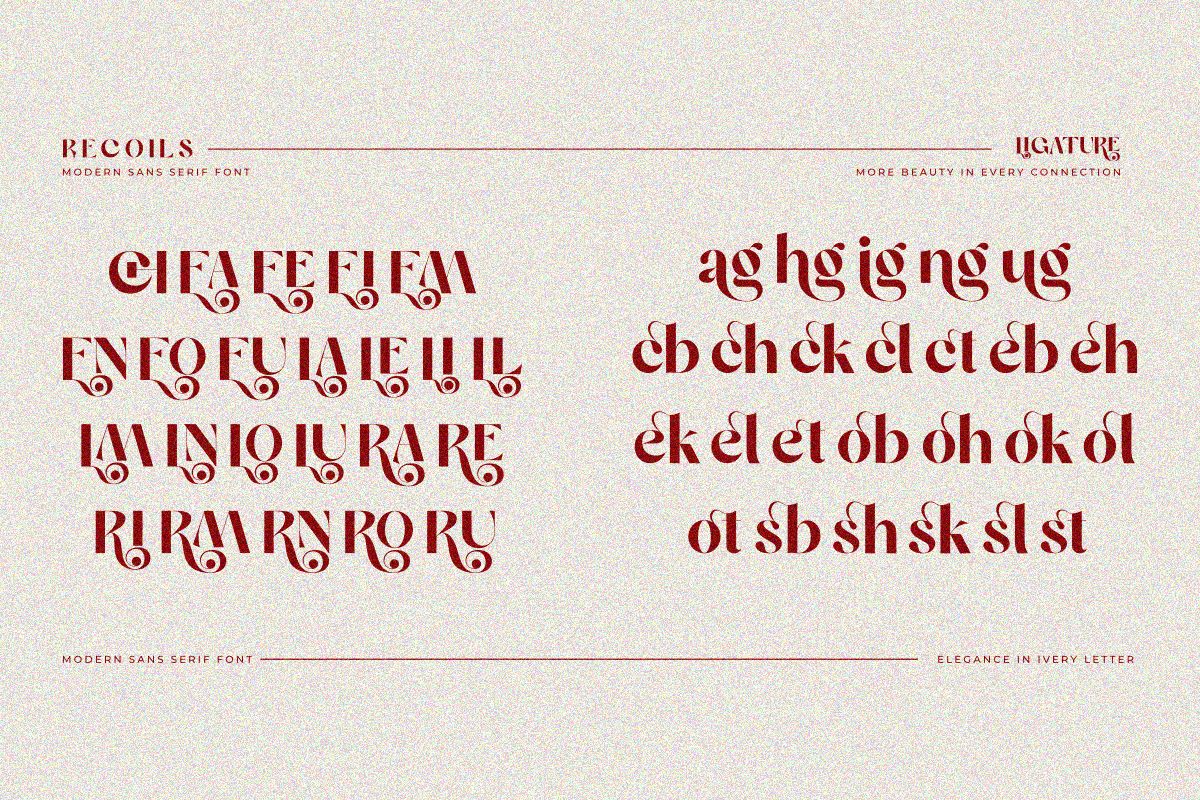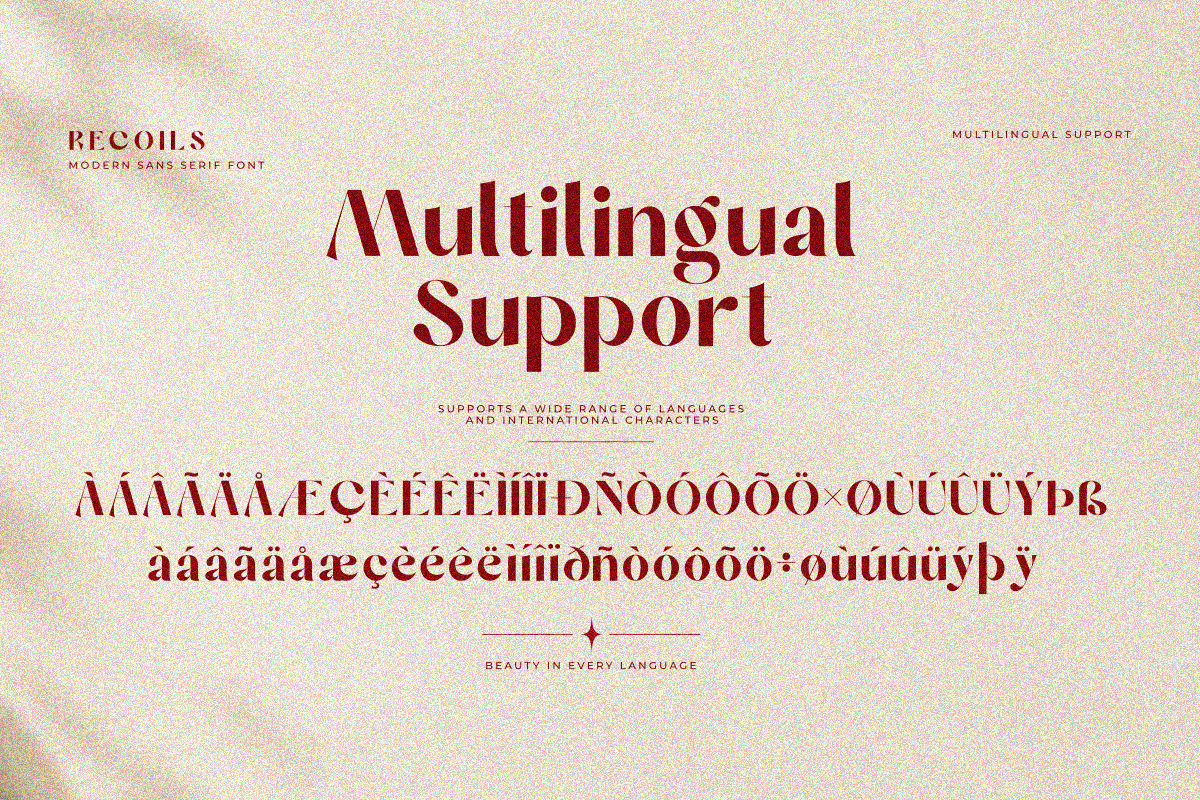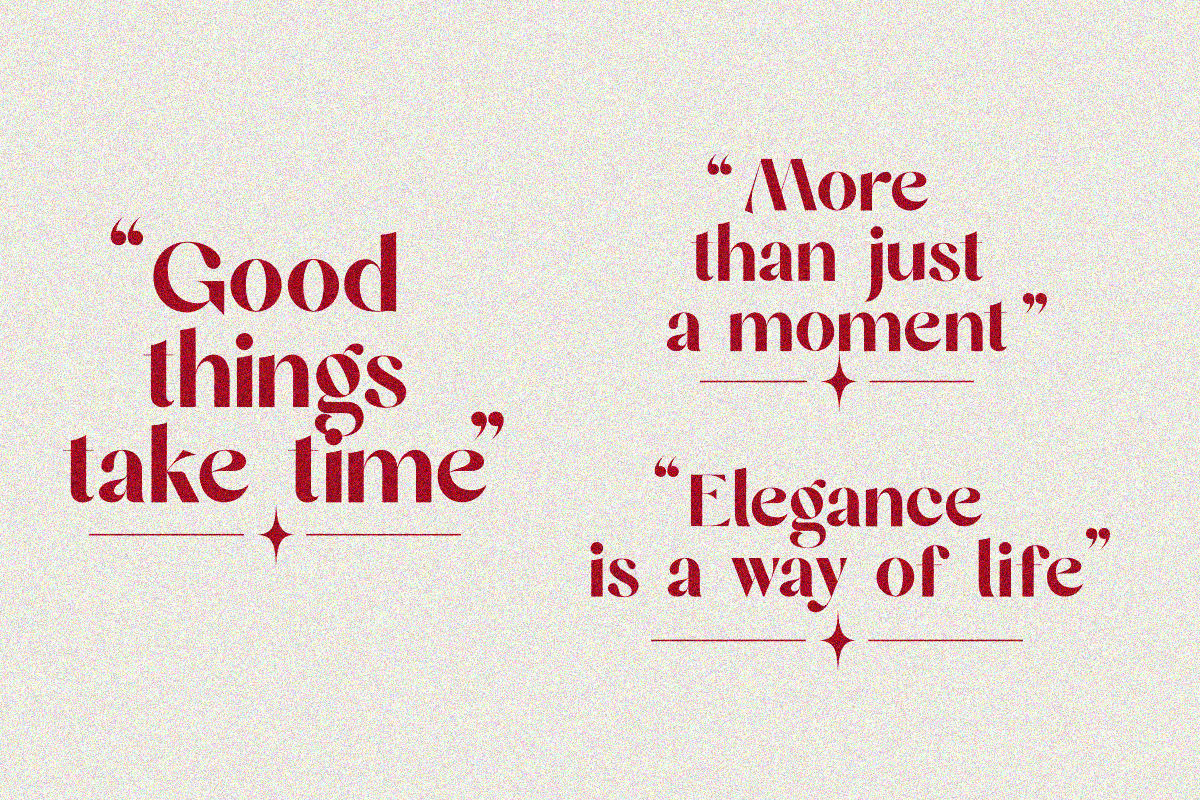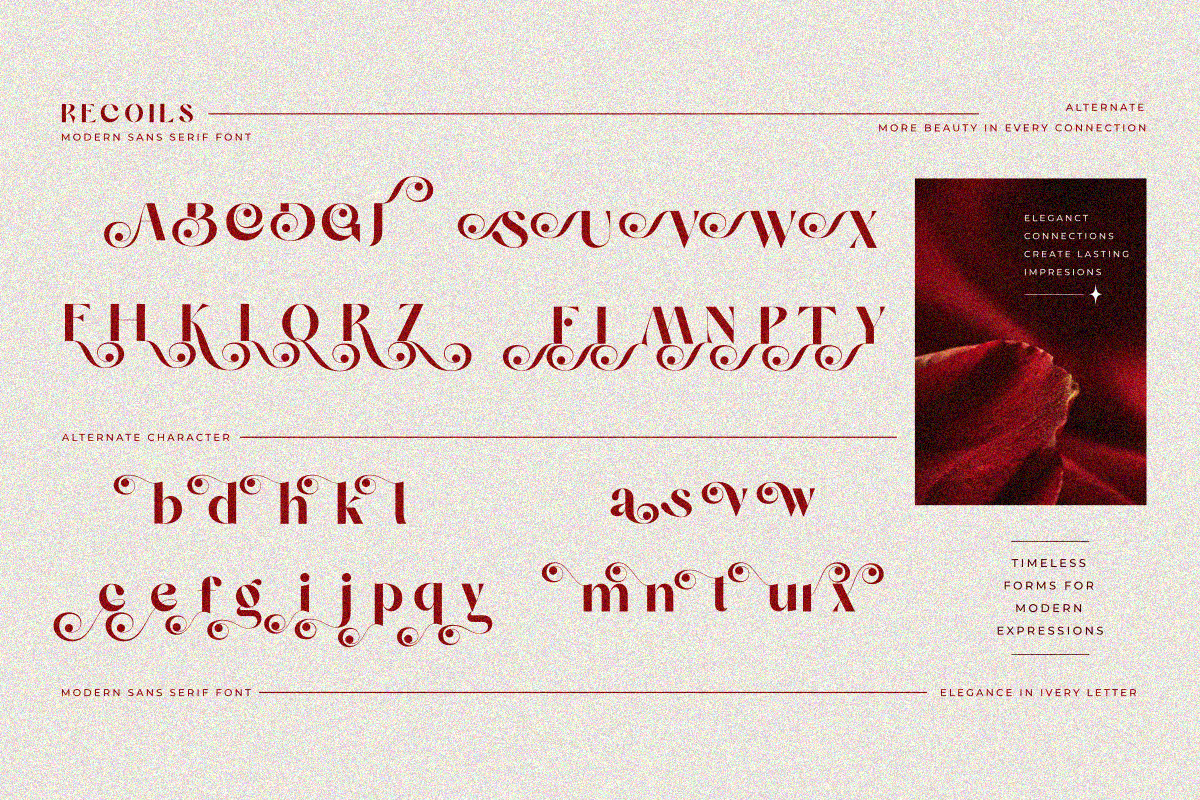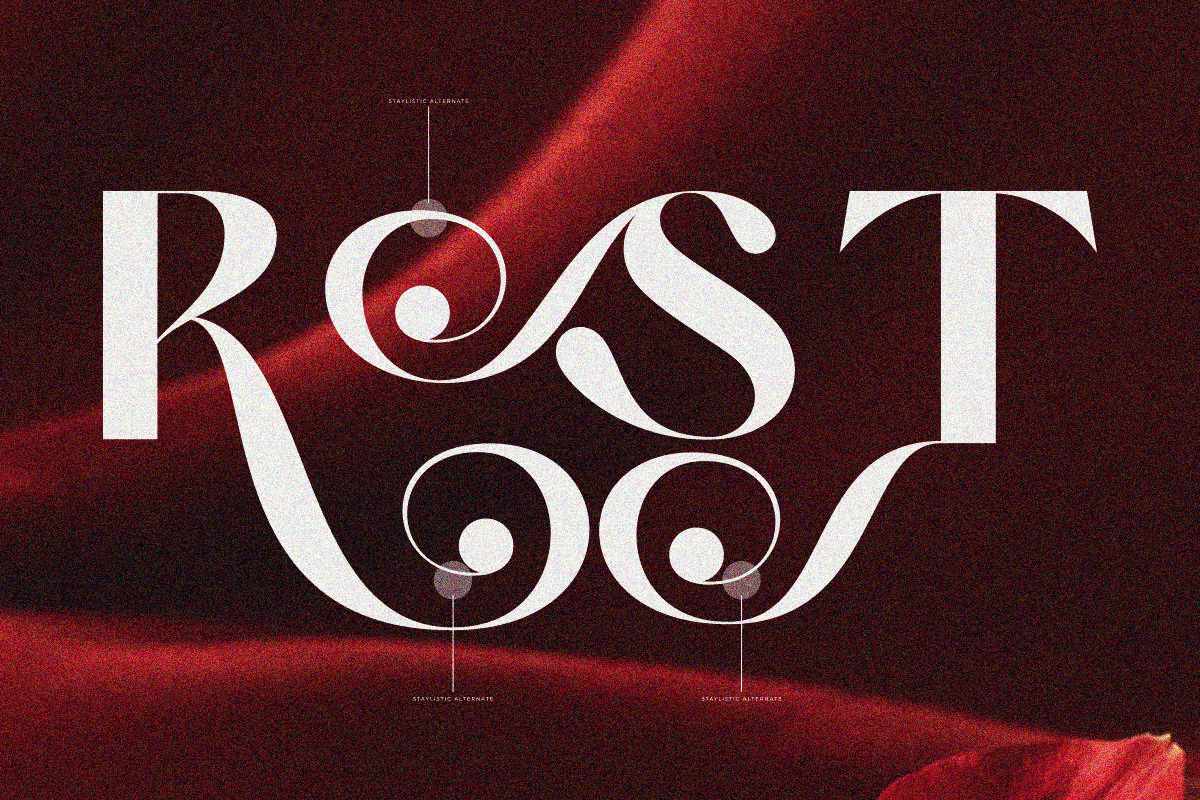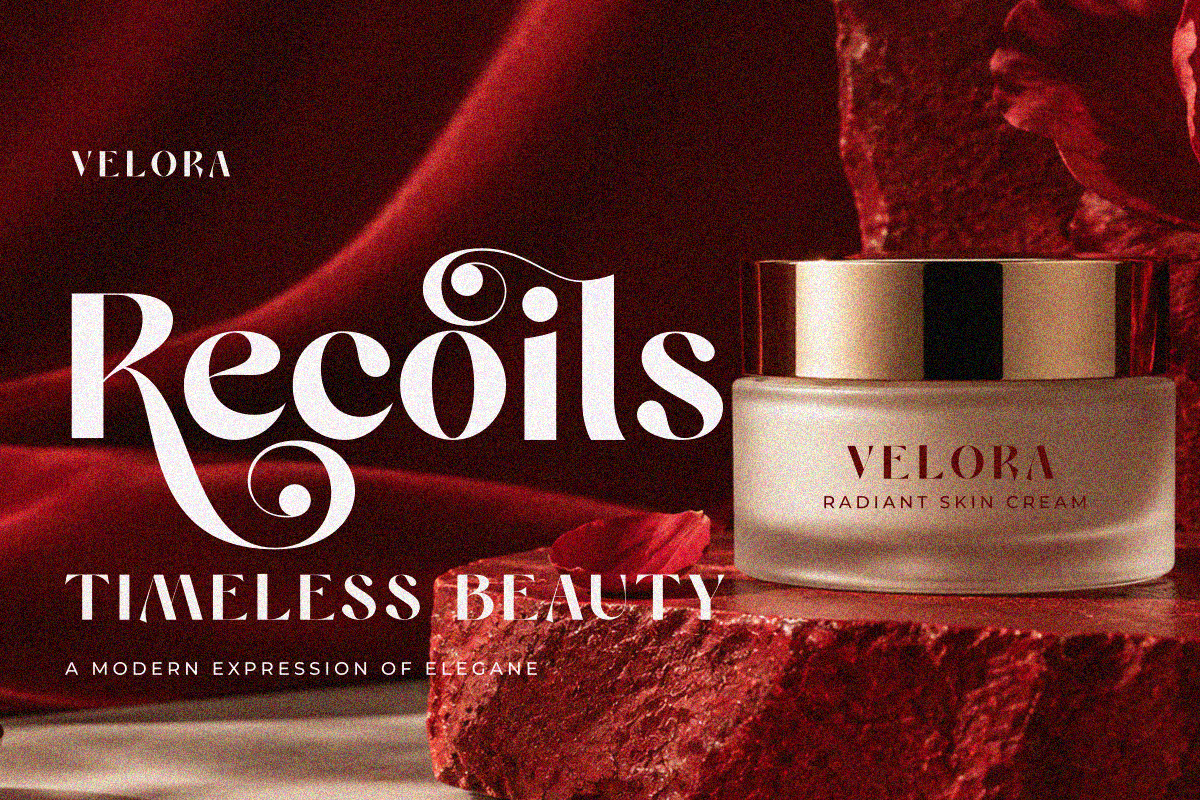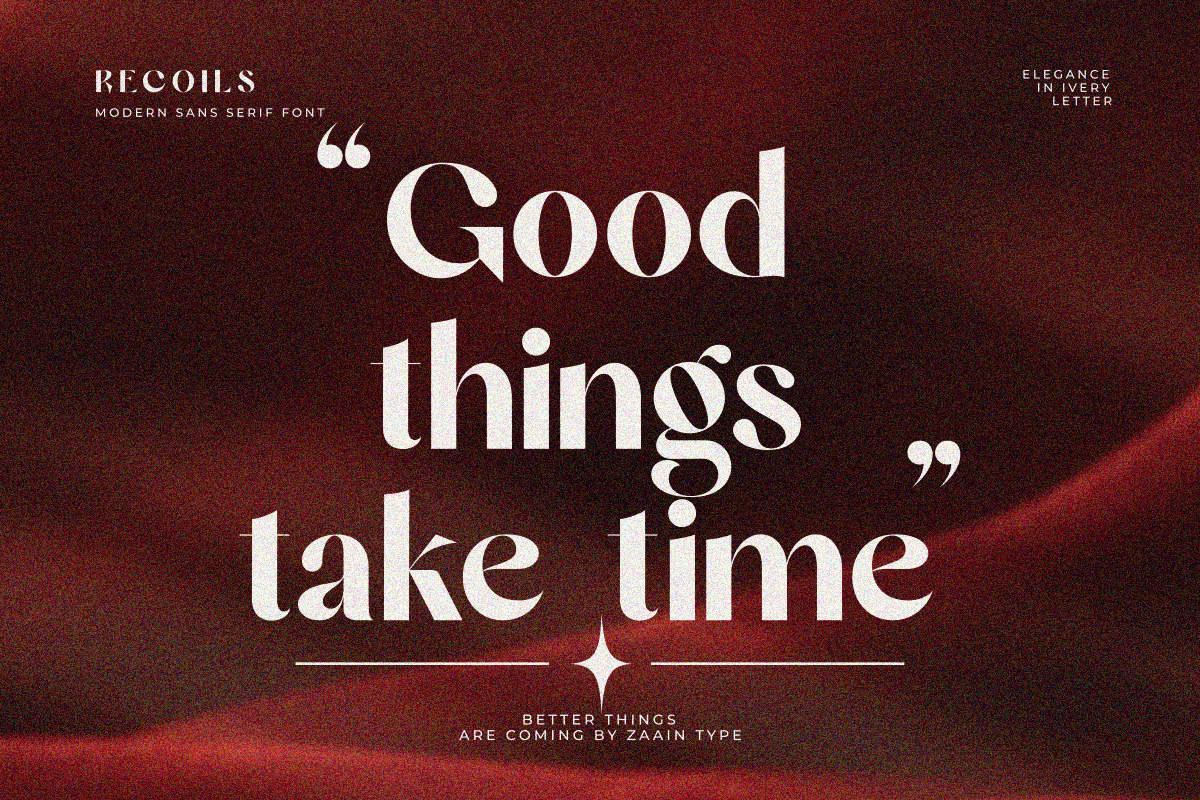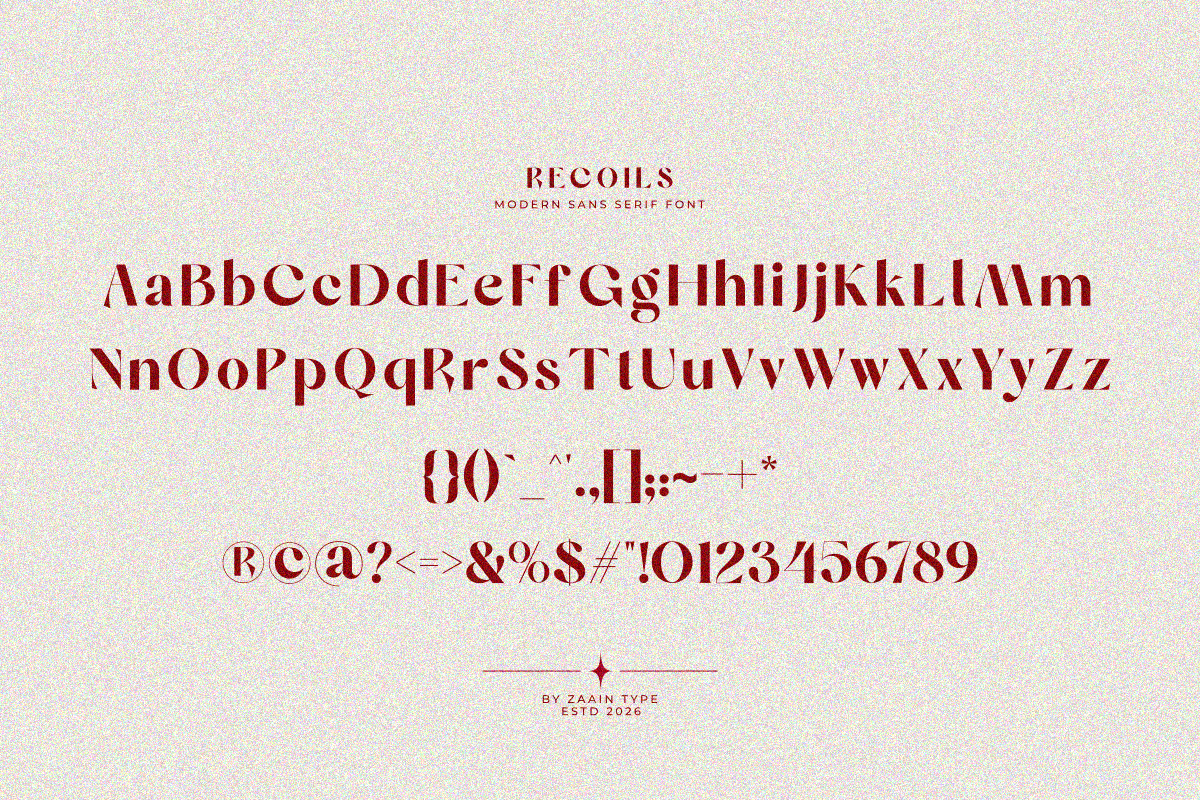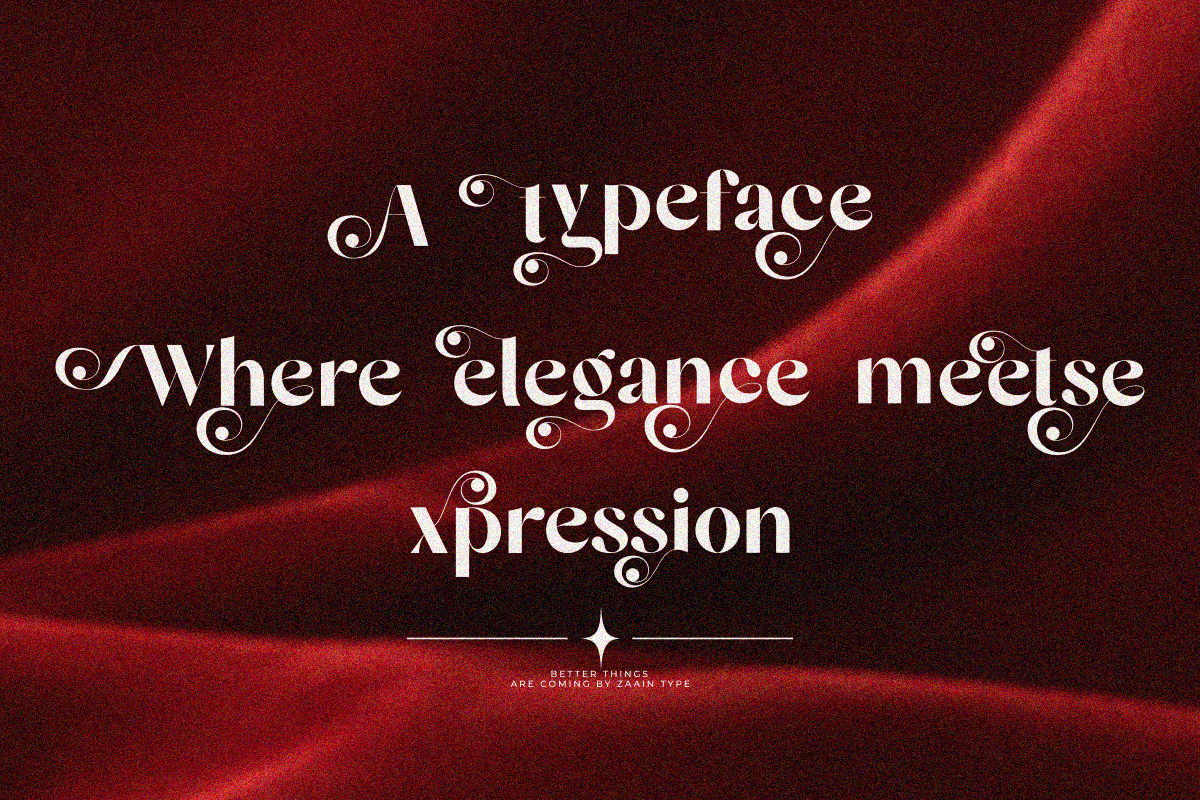
Recoils
Recoils is a contemporary sans serif designed with a refined balance of clean structure, smooth curves, and distinctive details. Its modern proportions give it a confident and sophisticated appearance while maintaining excellent readability across a wide range of applications.
Elegant yet versatile, Recoils is perfect for luxury branding, fashion and beauty projects, editorial design, packaging, advertising, logos, posters, and modern digital content. Whether used for bold headlines or polished brand identities, Recoils brings a fresh, stylish, and professional character to every design